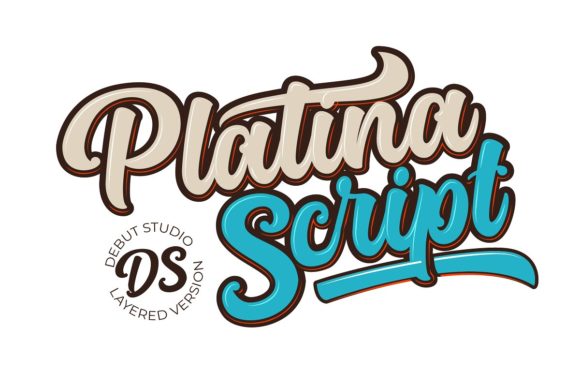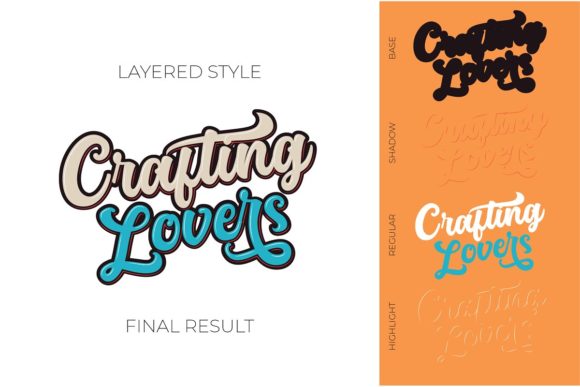
Platina Script Font
About Platina Script Font
Platina is a bold script font, carefully handcrafted to become a true favorite. Use it to add that special retro touch to any design idea you can think of!